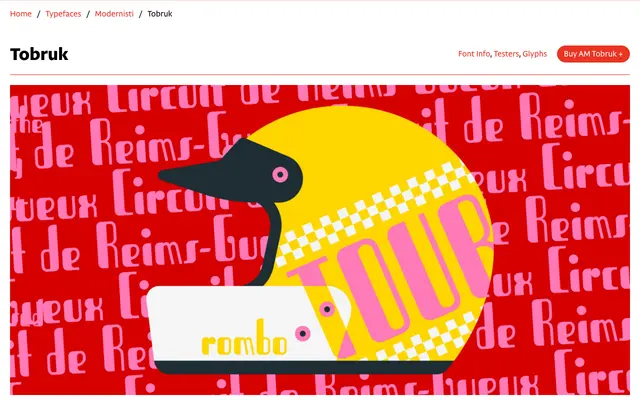
AM Tobruk
A digital revival of a c.1940 Xilografia di Verona wood type, preserving the Art Deco character of the original while rationalising its more erratic letterforms.
Originally cut as wood type by Xilografia di Verona around 1940, this condensed sans carries an unusually strong thick/thin contrast alongside rounded corners and a small x-height that together mark its Art Deco origins clearly. Andy Anzollitto's revival refines the letterform construction for digital use, introducing consistent terminal treatment and redrawn glyphs while retaining idiosyncrasies such as the vertical S, the oblique-stemmed M and N, and the elongated stems of p and q. The result is a single-weight display face with broad Latin language support, suited to headline and poster work where period warmth is wanted without raw historical roughness.
A condensed sans-serif with pronounced thick/thin contrast and rounded corners derived from a c.1940 wood type original; its geometric, streamlined character and period-specific detailing place it firmly in art deco display territory.